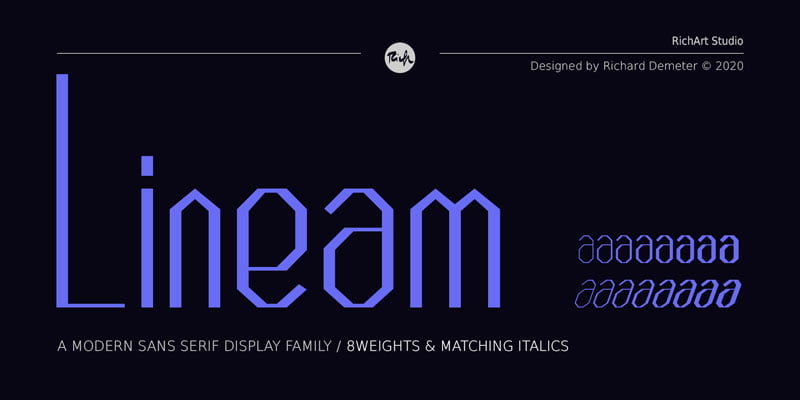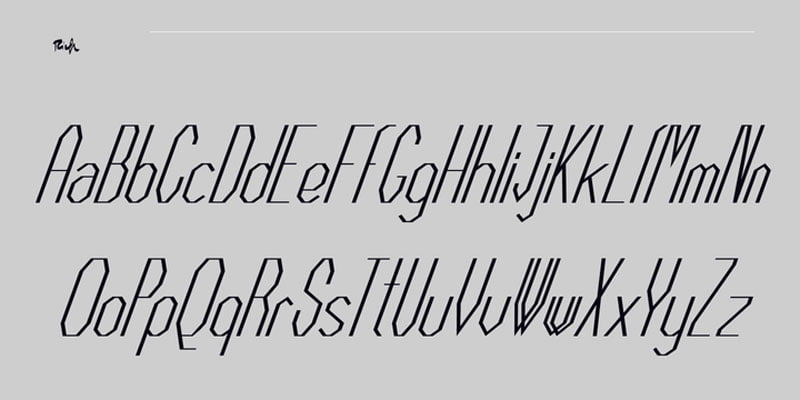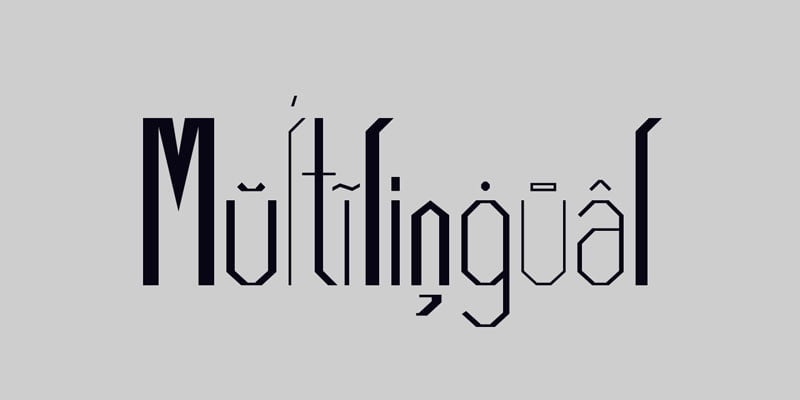
Lineam Font Family – 16 Fonts
In old Latin language Lineam mean line and that what Lineam is: a line based Sans Serif Display font. Lineam is a simple and clean looking font family and can be used for a range of cases. It is a modern sans serif font with geometric feeling and comes with 8 weights and matching italics.